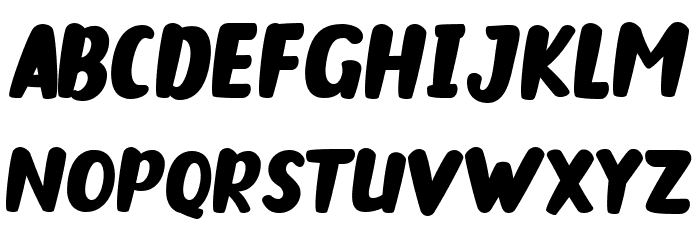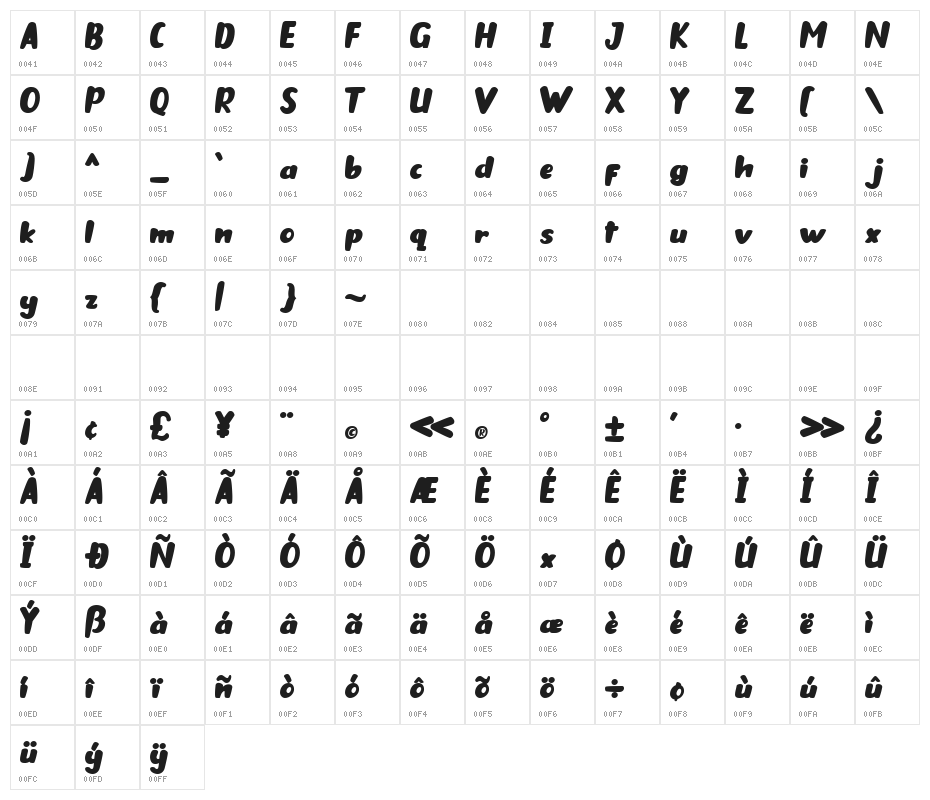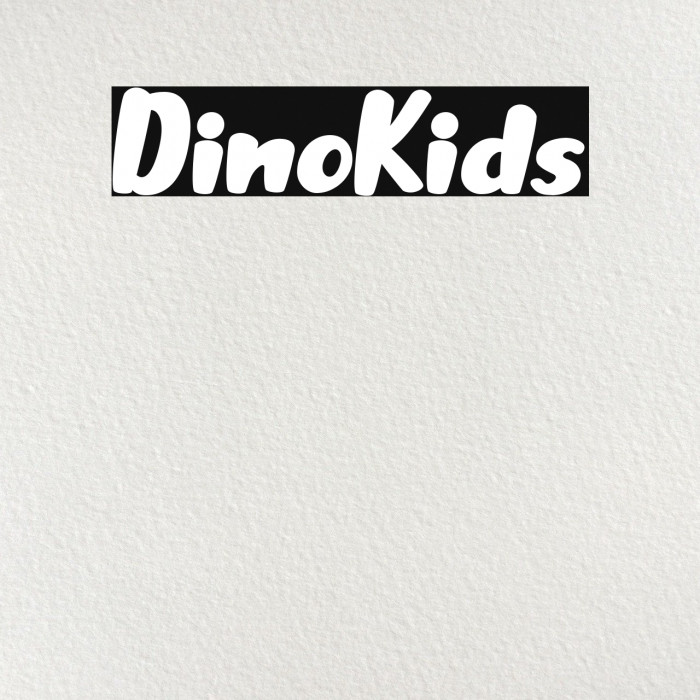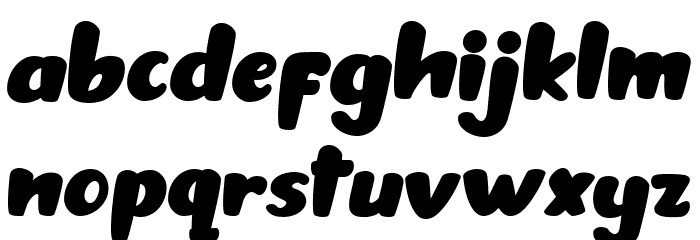
DinoKids Font
DinoKids Description
This playful and bold font features rounded, thick strokes that give it a friendly and approachable appearance. The characters are slightly slanted, adding a dynamic and energetic feel. The font's design is consistent across both uppercase and lowercase letters, maintaining a cohesive look. Its boldness and rounded edges make it particularly suitable for children's materials, educational content, or any project that aims to convey a sense of fun and creativity. The font's style is reminiscent of hand-drawn lettering, adding a personal touch to any design.
| Use Case | Headlines, Logos, Children's materials |
| Proposed Projects | Ideal for children's books, educational materials, playful branding, and creative posters. |